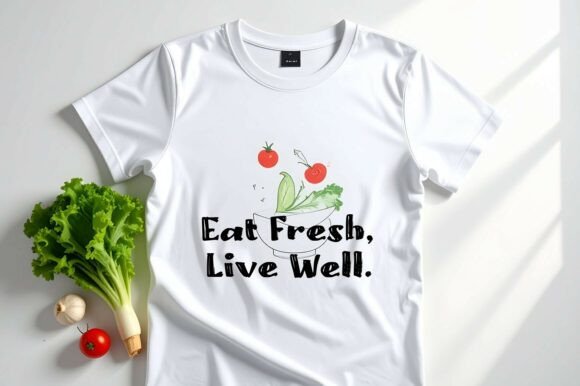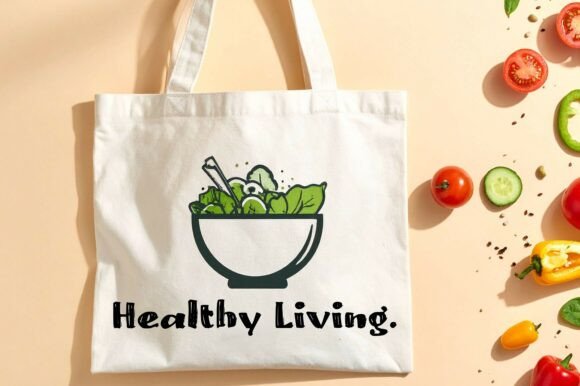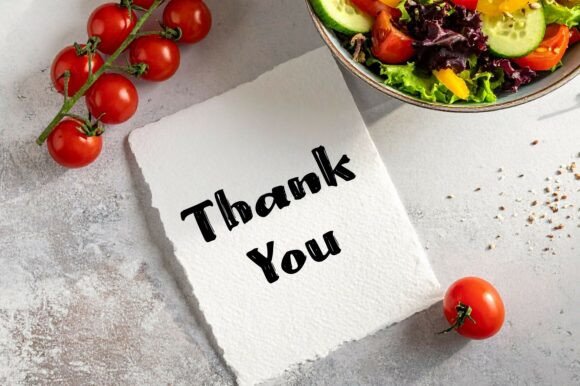
Introducing Caesar Salad Font: The Refreshing Choice for Creative Projects
Step into the verdant universe of “Caesar Salad,” an effervescent display font designed to infuse a buoyant, invigorating melody into your creative ventures. This standout typeface masterfully merges unadorned elegance with rustic charm, offering legibility that is as bright as crystal. In this article, we’ll explore the unique features and benefits of the Caesar Salad font, and how it can elevate your design projects to new heights.
Inspired by the Refreshing Essence of a Perfectly Assembled Salad
The Caesar Salad font draws cues from the refreshing essence and dynamic charm of a perfectly assembled salad. The font’s design is inspired by the crisp, fresh ingredients and the vibrant colors of a well-crafted salad. The result is a typeface that exudes a sense of wellness, dynamism, and genuineness, making it perfect for health-oriented food brands, restaurant menus, lifestyle-centric blogs, and eco-centric merchandise.
Unadorned Elegance with Rustic Charm
Caesar Salad font boasts a distinguishing zest that quietly channels the essence of a fresh salad. The font’s design combines unadorned elegance with rustic charm, creating a unique and captivating visual identity. The font’s clean lines, subtle curves, and balanced proportions make it highly legible, even at smaller font sizes.
Standard Punctuation Glyphs for Effortless Typesetting
Caesar Salad font comes with an inclusive spread of standard punctuation glyphs, making typesetting a breeze. The font’s comprehensive character set ensures that you have all the tools you need to create professional-looking text, from simple captions to complex layouts.
Remarkable Adaptability and Compatibility
One of the standout features of Caesar Salad font is its remarkable adaptability and compatibility across multifarious design instruments. Whether you’re working on a branding project, website design, or print materials, this font seamlessly integrates with various design software and platforms. This makes it an essential treasure in every creative professional’s toolkit, regardless of their expertise level.
Use Cases for Caesar Salad Font
So, where can you use the Caesar Salad font? The possibilities are endless! Here are some ideas to get you started:
• Health-oriented food brands: Use Caesar Salad font to create labels, packaging, and marketing materials that convey a sense of freshness and wellness.
• Restaurant menus: Add a touch of elegance and sophistication to your menus with this versatile font.
• Lifestyle-centric blogs: Use Caesar Salad font to create engaging headlines, titles, and body text that resonate with your audience.
• Eco-centric merchandise: Create customized products, such as t-shirts, tote bags, and water bottles, with Caesar Salad font to promote your eco-friendly brand.
Why Choose Caesar Salad Font?
With so many fonts available, why choose Caesar Salad font? Here are just a few reasons:
• Unique and captivating design: Caesar Salad font stands out from the crowd with its distinctive blend of elegance and rustic charm.
• High legibility: The font’s clean design and balanced proportions ensure that your text is easy to read, even at smaller font sizes.
• Versatility: Use Caesar Salad font across various design projects, from branding and advertising to packaging and digital media.
• Easy to use: The font comes with standard punctuation glyphs and is compatible with various design software and platforms.
Font Name Caesar Salad Font
Author wep – Wahyu Eka Prasetya
In conclusion, Caesar Salad font is a refreshing and versatile typeface that can add a unique touch to your creative projects. With its captivating design, high legibility, and remarkable adaptability, this font is sure to become a staple in your design toolkit. Whether you’re a seasoned designer or a crafty DIY enthusiast, Caesar Salad font is the perfect choice for health-oriented food brands, restaurant menus, lifestyle-centric blogs, and eco-centric merchandise. So why wait? Download Caesar Salad font today and unleash your creativity!